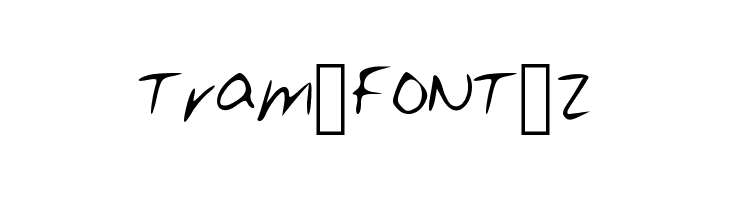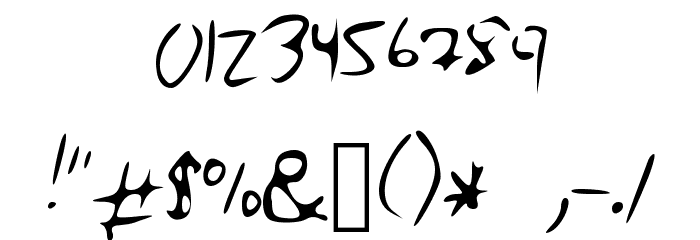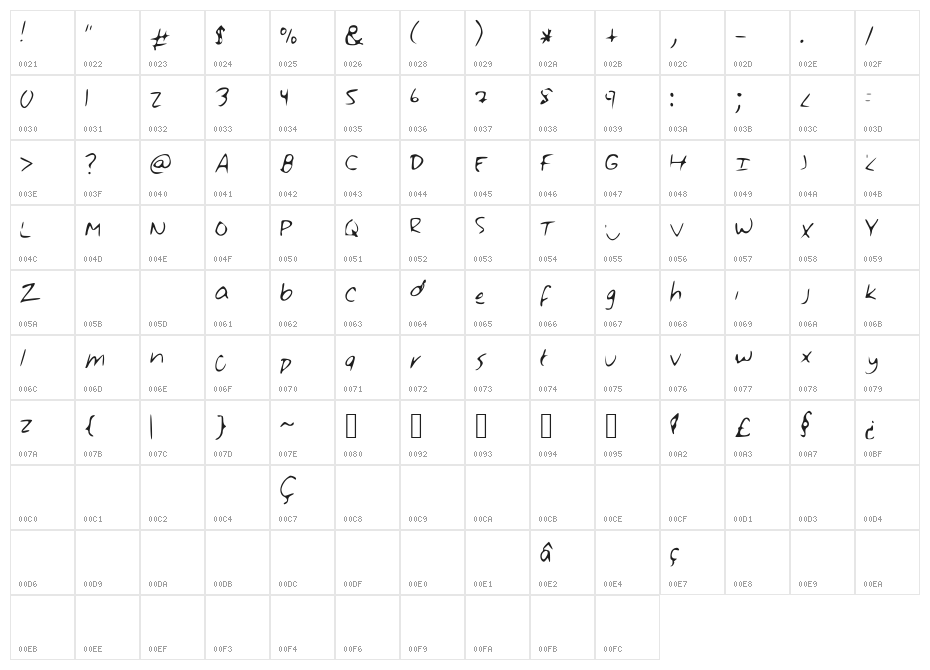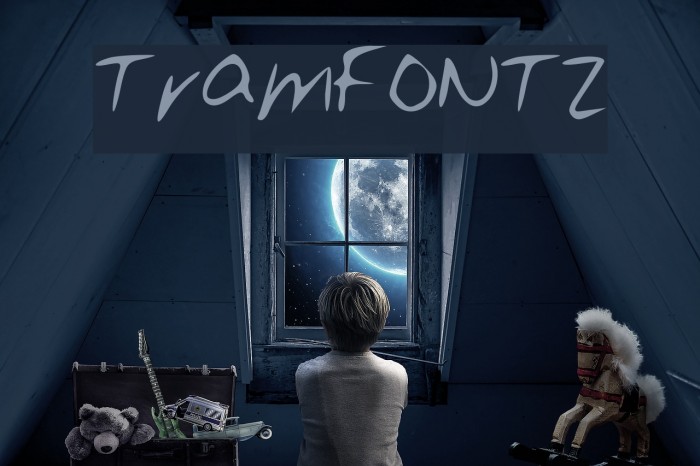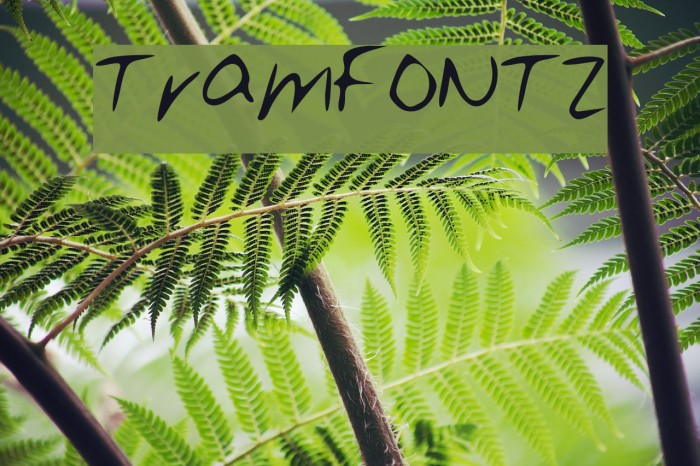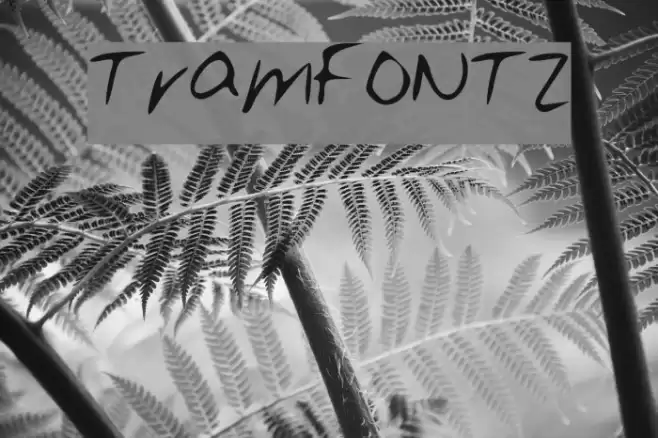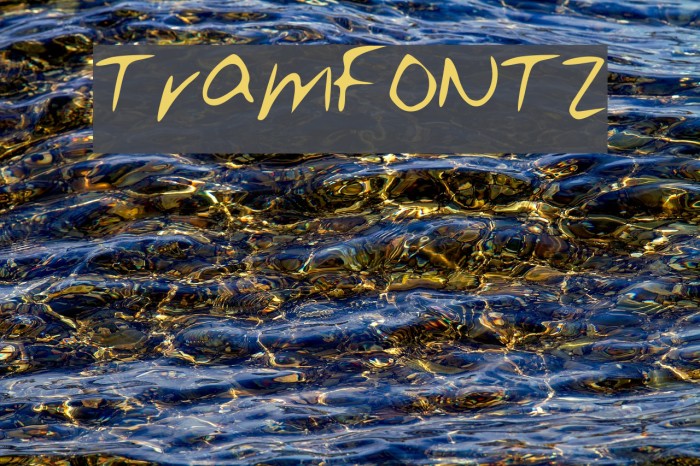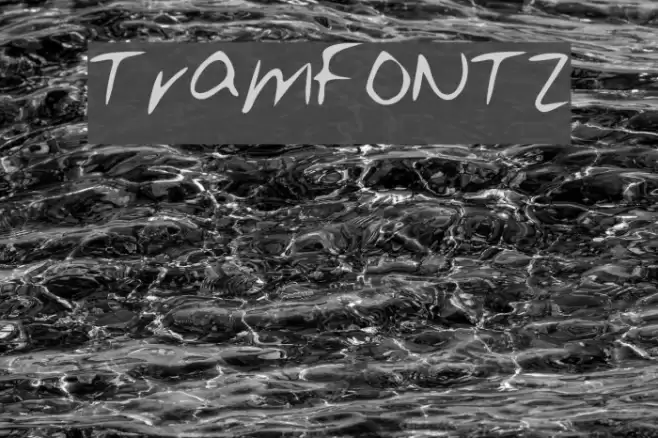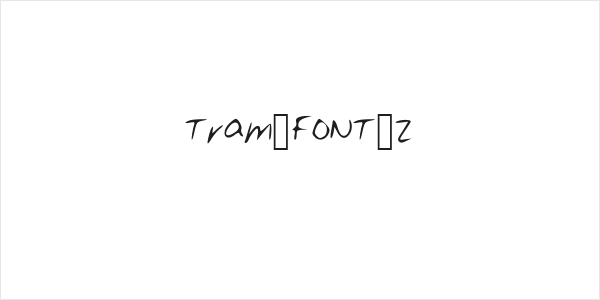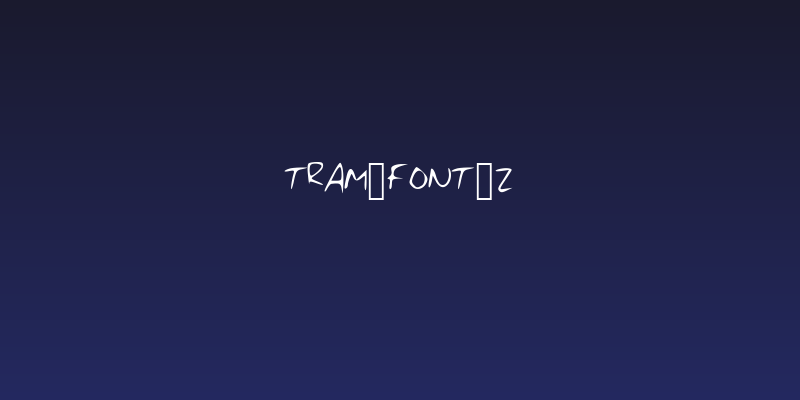
Tram_FONT_2 Font
Tram_FONT_2 Description
This font exhibits a dynamic and fluid handwritten style, characterized by its expressive and slightly irregular strokes. The letters have a casual, yet artistic appearance, with varying thickness that adds a sense of movement and energy. The uppercase and lowercase letters maintain a consistent style, though the lowercase letters are slightly more compact. Numbers and special characters follow the same lively aesthetic, making the font suitable for creative and informal applications. The overall look is modern and playful, with a touch of spontaneity.
| Overall Style | Modern, Playful |
| Proposed Projects | Ideal for creative projects such as greeting cards, invitations, personal branding, and artistic posters. |